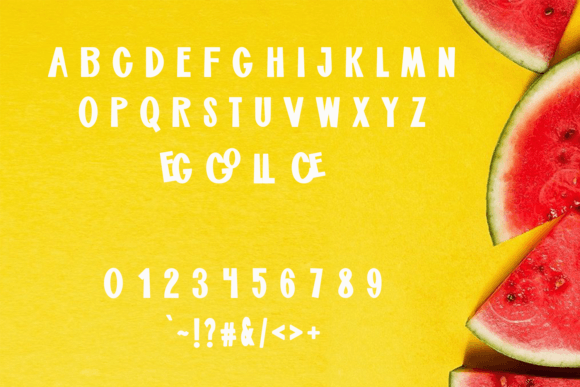
Discover the Playful Charm of Egogone Font
I’ll never forget the moment I stumbled upon Egogone Font while working on a children’s activity book project. I was on a tight deadline, and my design was feeling flat and lifeless. I had tried countless fonts, but none seemed to capture the playful essence I was looking for. That was until I discovered Egogone Font. With its chunky letters and infectious personality, it instantly brought my design to life! In this article, I’ll share my experience with Egogone Font, its features, and how to make the most of it in your designs.
An Honest Review of Egogone Font
What I Love About Egogone Font
- ✨ Playful and fun: Egogone Font embodies the perfect blend of playfulness and authenticity, making it ideal for children’s activity books, school projects, and more.
- ✅ Easy to read: Despite its chunky design, Egogone Font is surprisingly easy to read, even at smaller sizes.
- 💡 Versatile: This font is perfect for headlines, titles, and short paragraphs, adding a touch of whimsy to any design.
While Egogone Font is an excellent choice for many projects, there are a few things to keep in mind:
- 🤔 Limited use in body text: Due to its chunky design, Egogone Font may not be the best choice for lengthy body text. It’s best used for headlines, titles, and short paragraphs.
- ⚠️ Not suitable for formal designs: Egogone Font is playful and fun, which means it may not be the best fit for formal designs, such as business cards or corporate branding.
The Backstory of Egogone Font
Egogone Font was designed with one goal in mind: to create a playful, fun font that embodies the spirit of childhood. The designer, inspired by the carefree days of youth, set out to create a font that’s both authentic and whimsical. The result is Egogone Font, a chunky, lettered font that’s perfect for bringing a touch of playfulness to any design.
Q: What is Egogone Font best used for?
A: Egogone Font is perfect for children’s activity books, school projects, and any design that requires a playful, fun touch.
Q: Is Egogone Font easy to read?
A: Despite its chunky design, Egogone Font is surprisingly easy to read, even at smaller sizes.